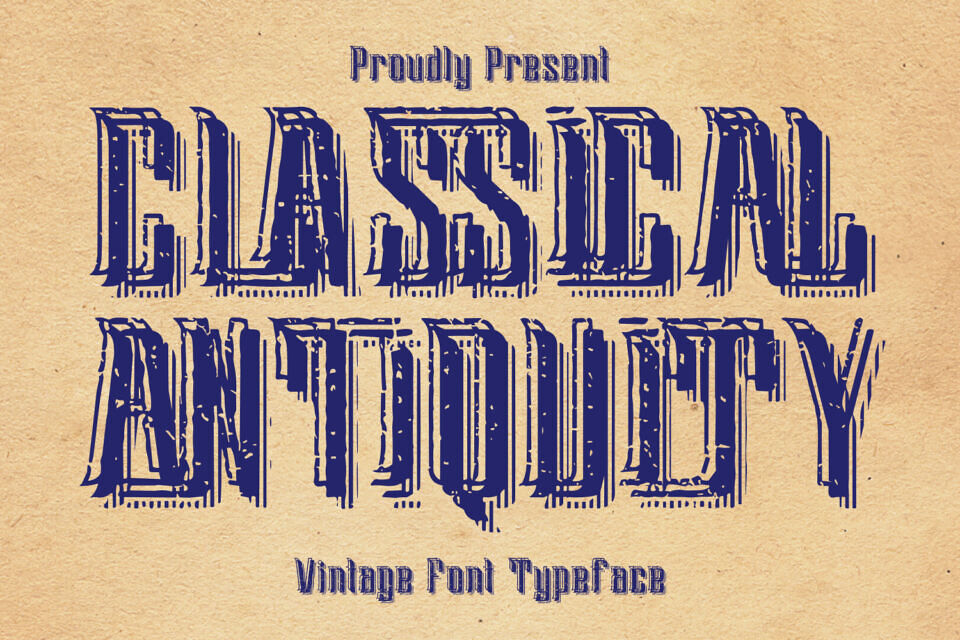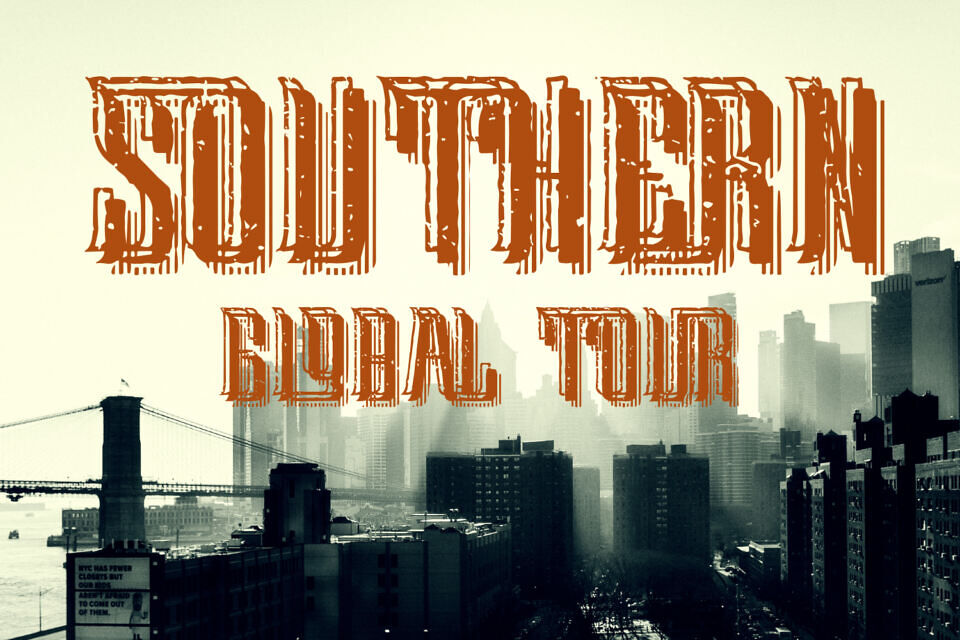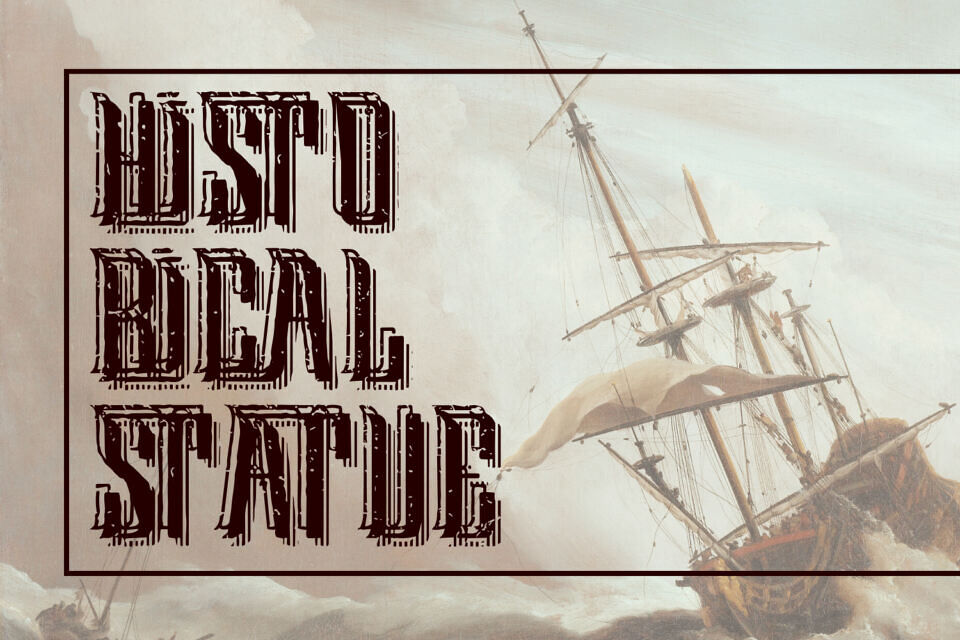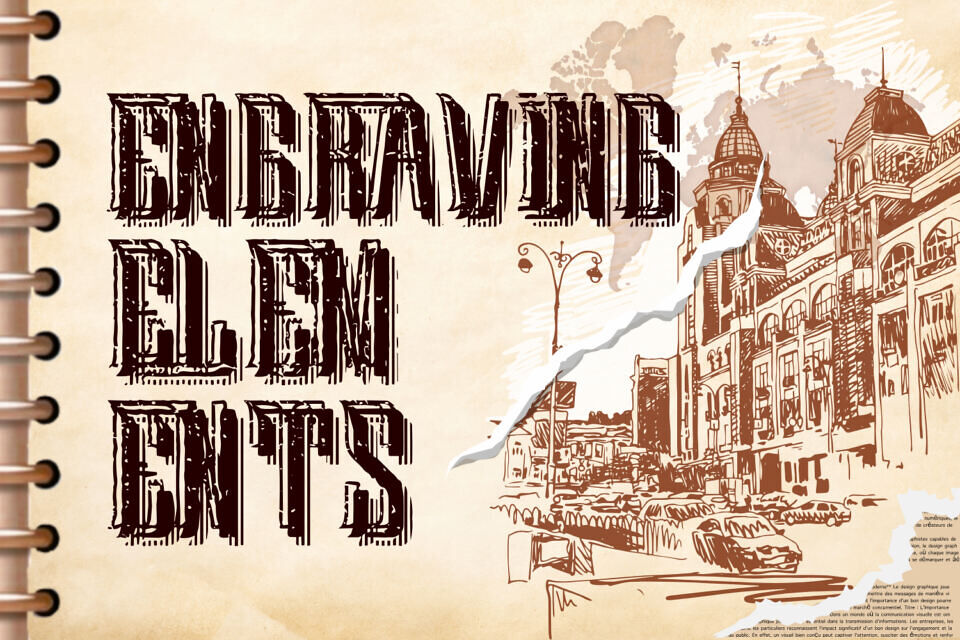
Classical Antiquity Font is a high-impact Distressed Vintage Serif Display Font inspired by the elegance and decay of classical antiquity. With its distressed letterpress texture, elongated serifs, and engraved-like forms, this font evokes the charm of old posters, historical documents, and early printing press aesthetics.
Carefully crafted to capture the imperfect beauty of traditional wood type and hand-printed ink, CLASSICAL ANTIQUITY is ideal for branding, book covers, whiskey labels, Western-themed graphics, or anything that requires a touch of antique drama and authenticity.